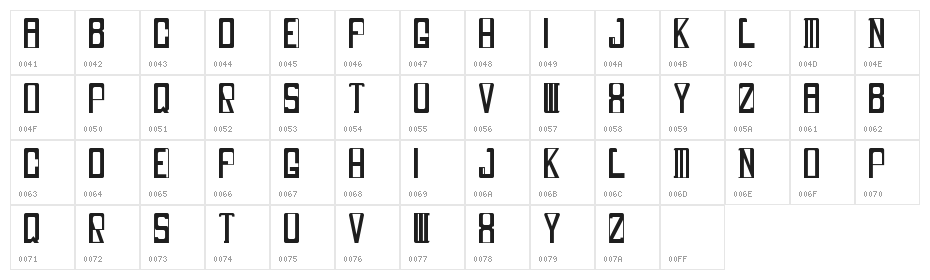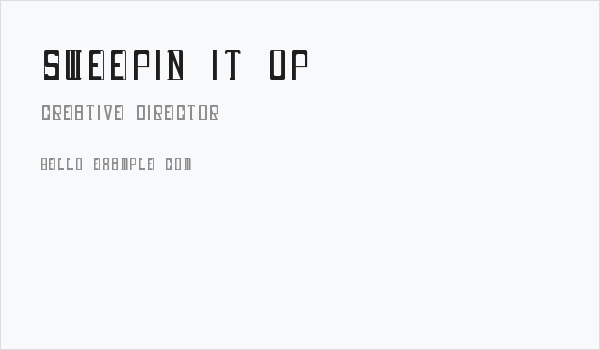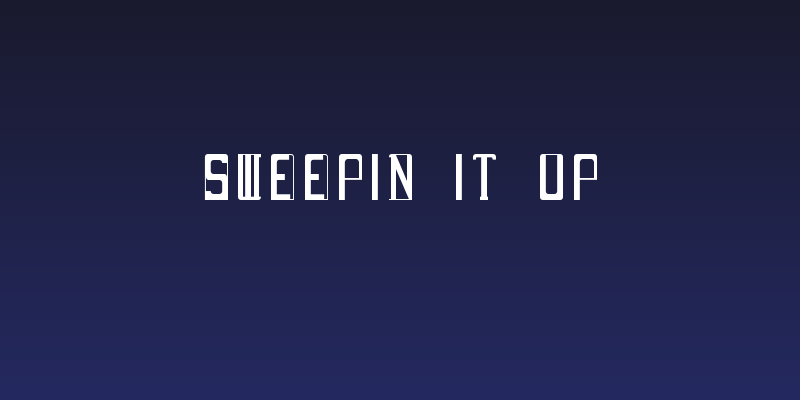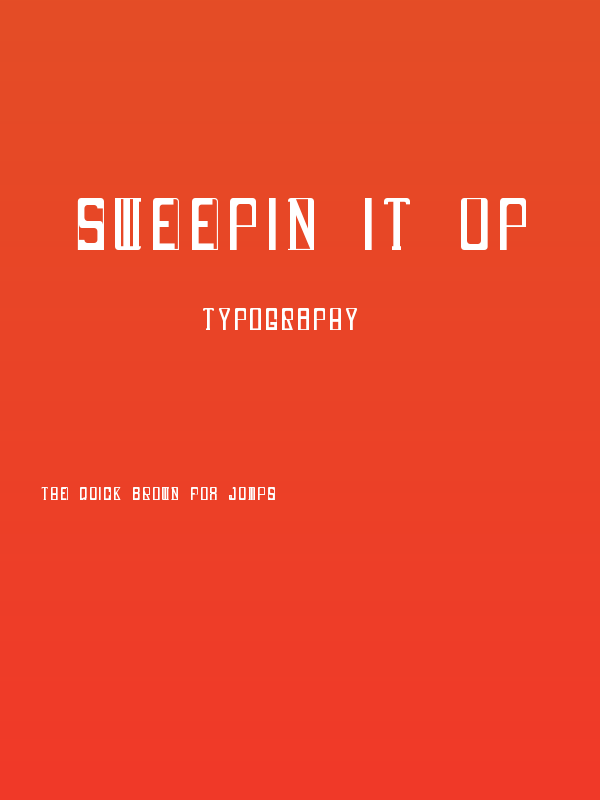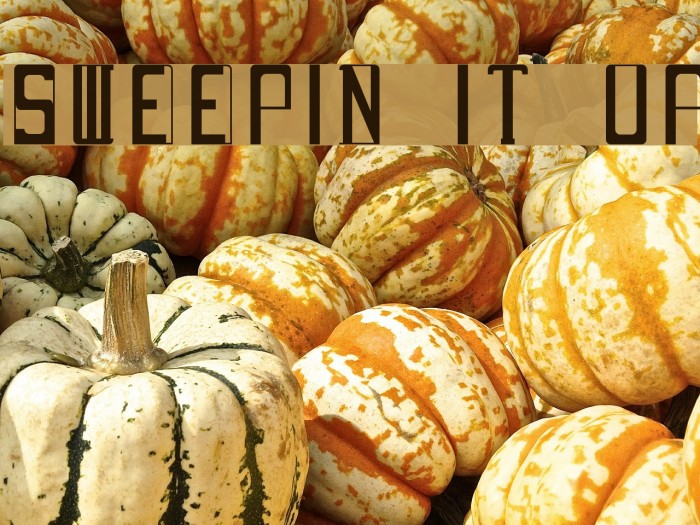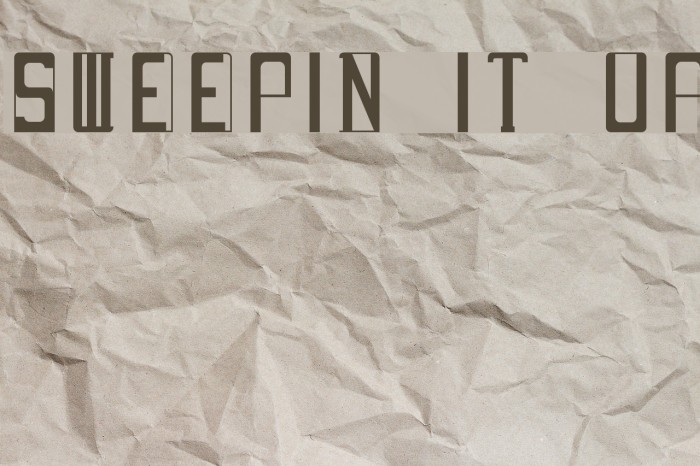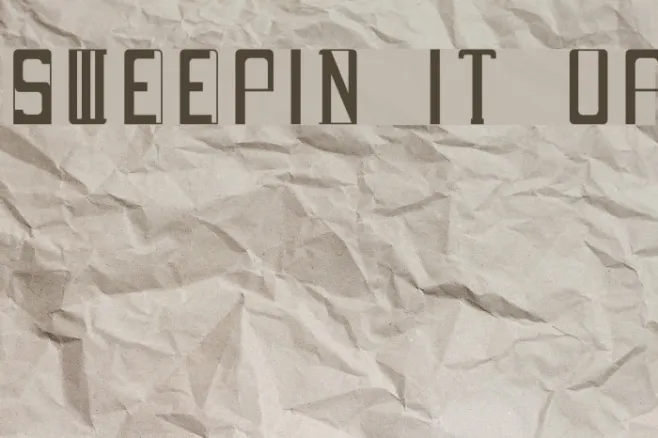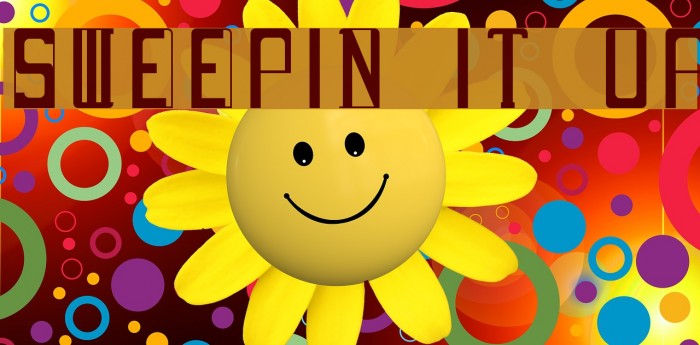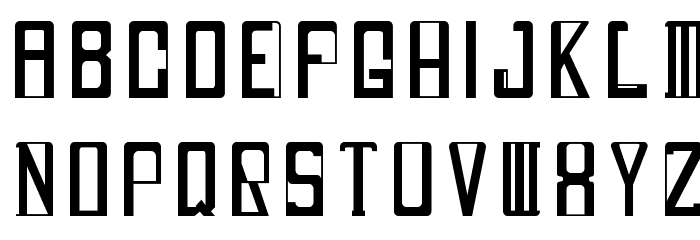
Sweepin It Up Font
Sweepin It Up Description
This font features a bold and geometric design with a distinct industrial feel. Each character is constructed with thick, block-like strokes, creating a strong and impactful presence. The letters have a unique cut-out style, where parts of the strokes are missing, adding a modern and edgy touch. This design choice gives the font a sense of movement and dynamism, making it stand out in any application. The uppercase letters are uniform in height, contributing to a cohesive and structured appearance. The overall style is both futuristic and retro, reminiscent of digital displays or architectural elements.
| Proposed Projects | Ideal for branding, posters, and digital media where a strong, modern impact is desired. |